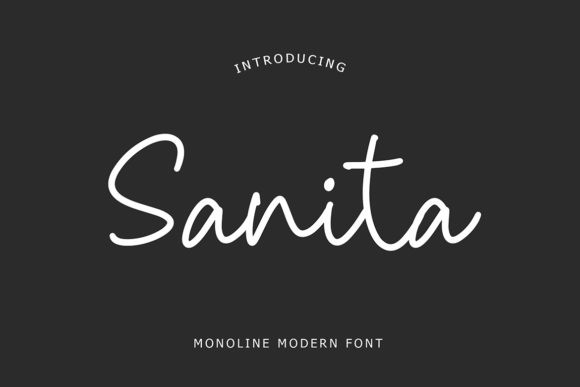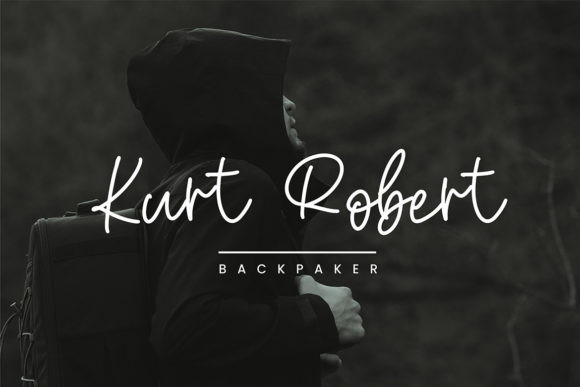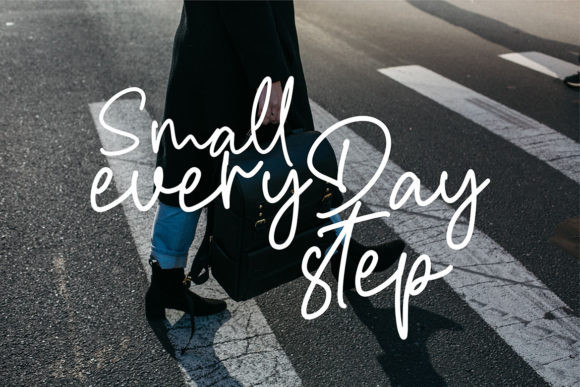
Sanita Font
Sanita is a casual script font. This font is perfect for branding projects, logo, tshirt designs, social media posts, advertisements, product packaging, product designs, label, watermark, invitation, stationery and more.